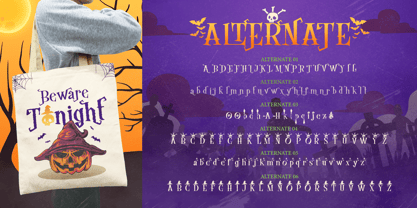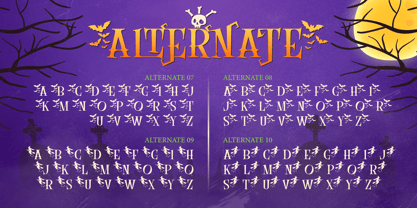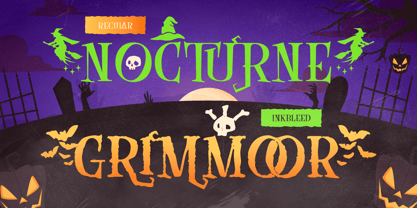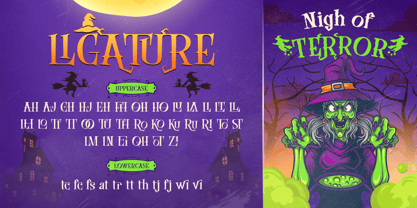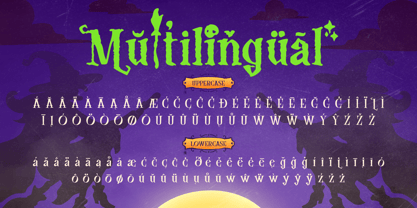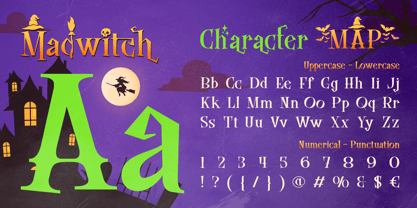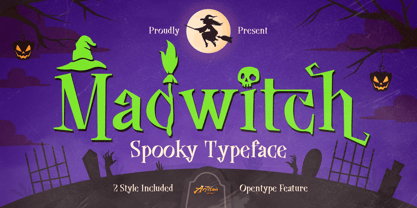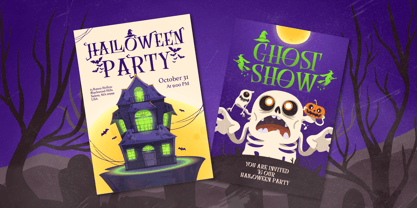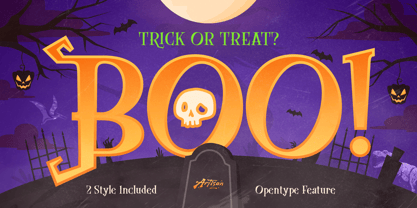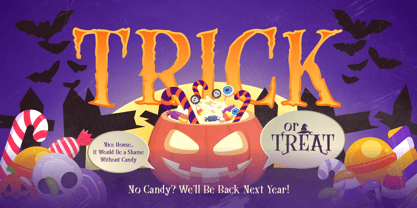
Madwitch
Boo! It's that time of the year again! Madwitch is here to haunt your designs in the best way possible. With its playful hand-lettered feel and slightly crooked, dripping-candle energy, this display font brings all the witchy, spooky vibes without being too scary. Think fun spooky, not nightmare spooky.
This font comes in 2 styles — clean Regular for that classic spooky-cute look, and Inkbleed for a more textured, worn-out grimoire vibe. Both styles include full uppercase and lowercase letters, numbers, and punctuation, plus alternates features so you can create even more variety without extra work.
Whether you're designing Halloween party invites, spooky season merch, pumpkin patch signage, or witchy branding for your small business, Madwitch has got you covered from broomstick to black cat.
Perfect For:
• Halloween party invitations & flyers
• Spooky season social media graphics
• T-shirt & merch designs
• Witchy branding & packaging
• Trick-or-treat signage
• Kids' Halloween activity books
• Pumpkin patch & haunted house promos
• Greeting cards & gift tags